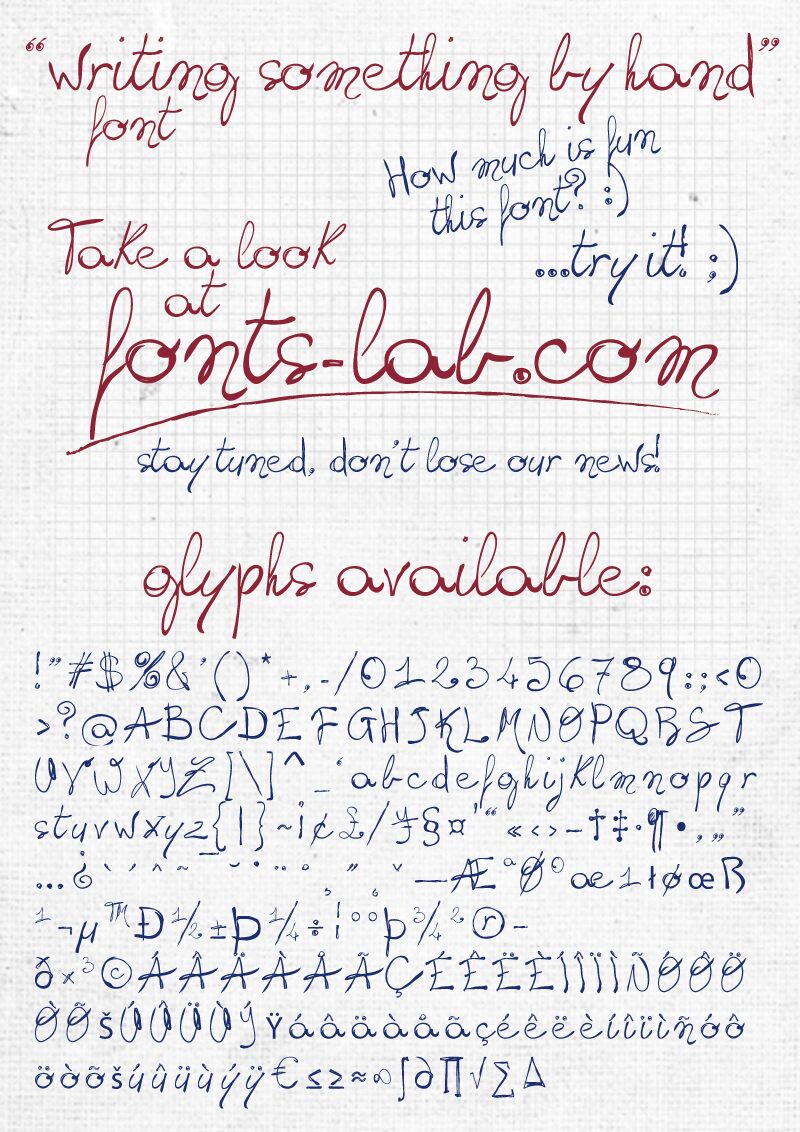
Writing Something by Hand is a free calligraphic script with broad loops and sharply changing stroke widths. Its letters sweep forward through long joins, open curves, and pointed finishing strokes. The result feels quick and personal.
Its strongest use is signature-style branding, especially for fashion labels and beauty packaging that benefit from an assertive handwritten mark. The same fluid drawing also suits wedding invitations and music artwork, where the extended strokes can become part of a decorative border or surrounding illustration.